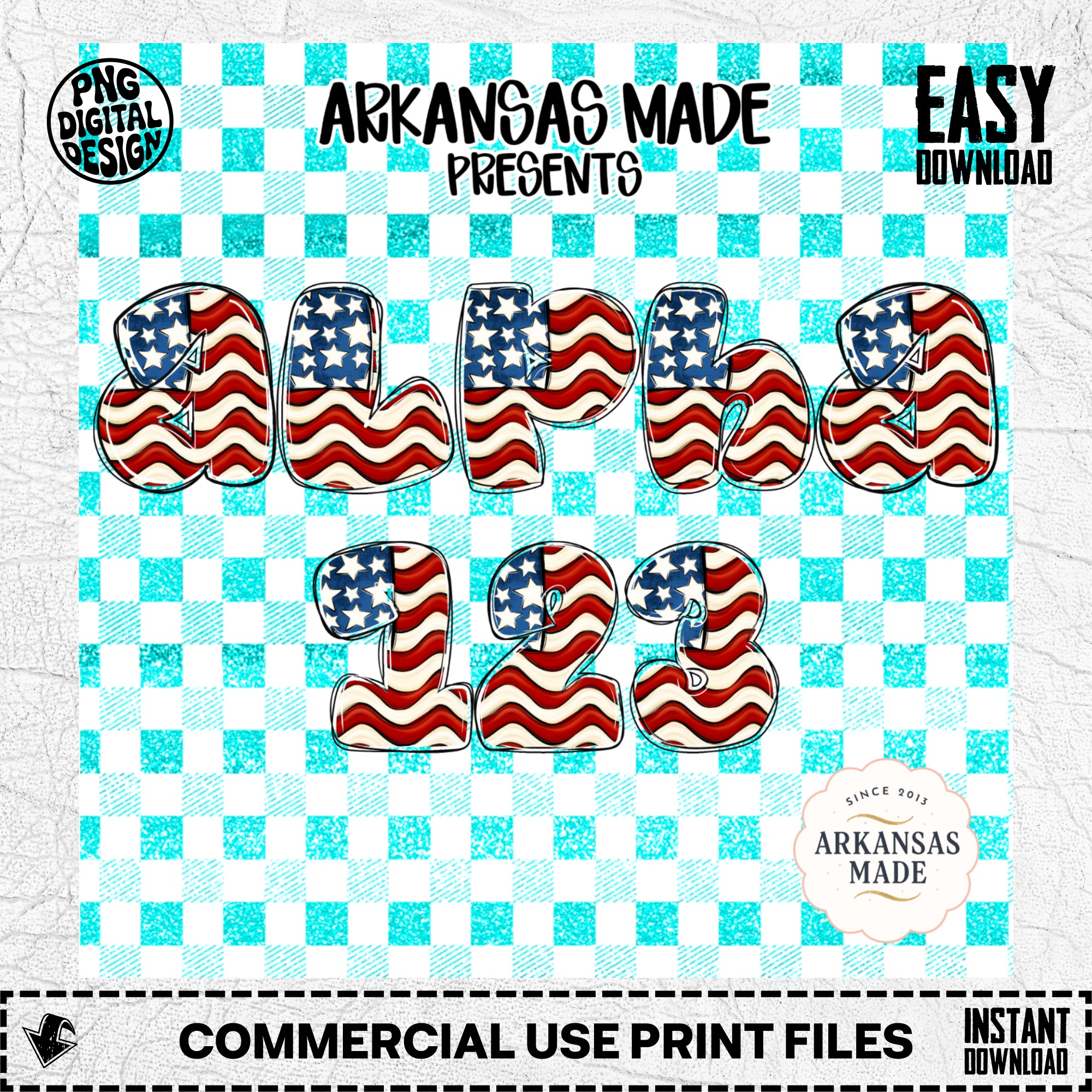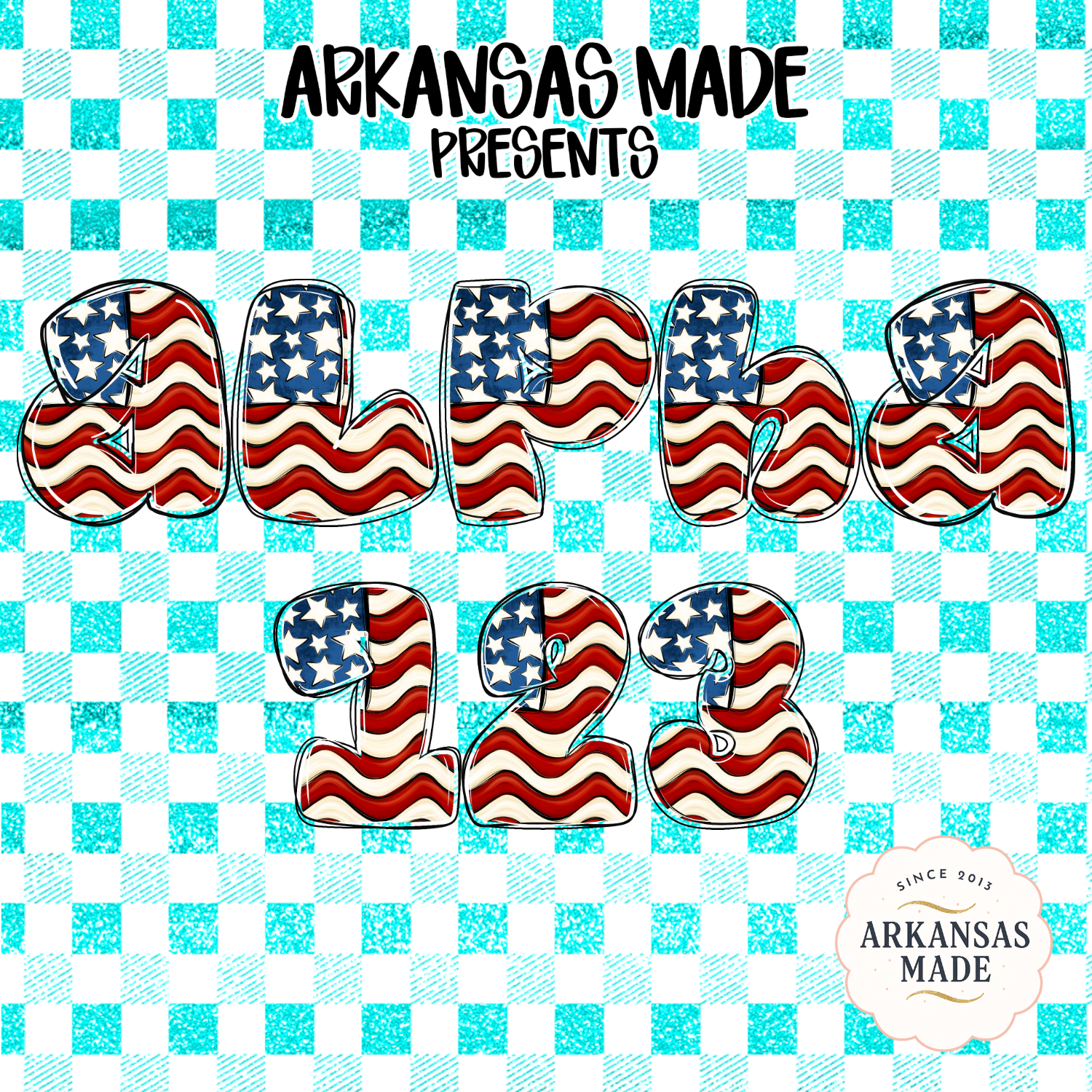
American Flag Alphabet PNGs, 4th of July Letters Numbers, Patriotic USA Sublimation Digital Download, Commercial Use Font
Get ready to craft with our vibrant American Flag Alphabet PNGs! Perfect for 4th of July and patriotic projects, these digital letters and numbers are instant downloads. Unleash your creativity with this versatile collection featuring a fun, bubbly stars and stripes design. Ideal for crafters, small business owners, and DIY enthusiasts creating custom apparel, party decor, or unique gifts. Celebrate Independence Day, Memorial Day, or any USA-themed event with bold flair.